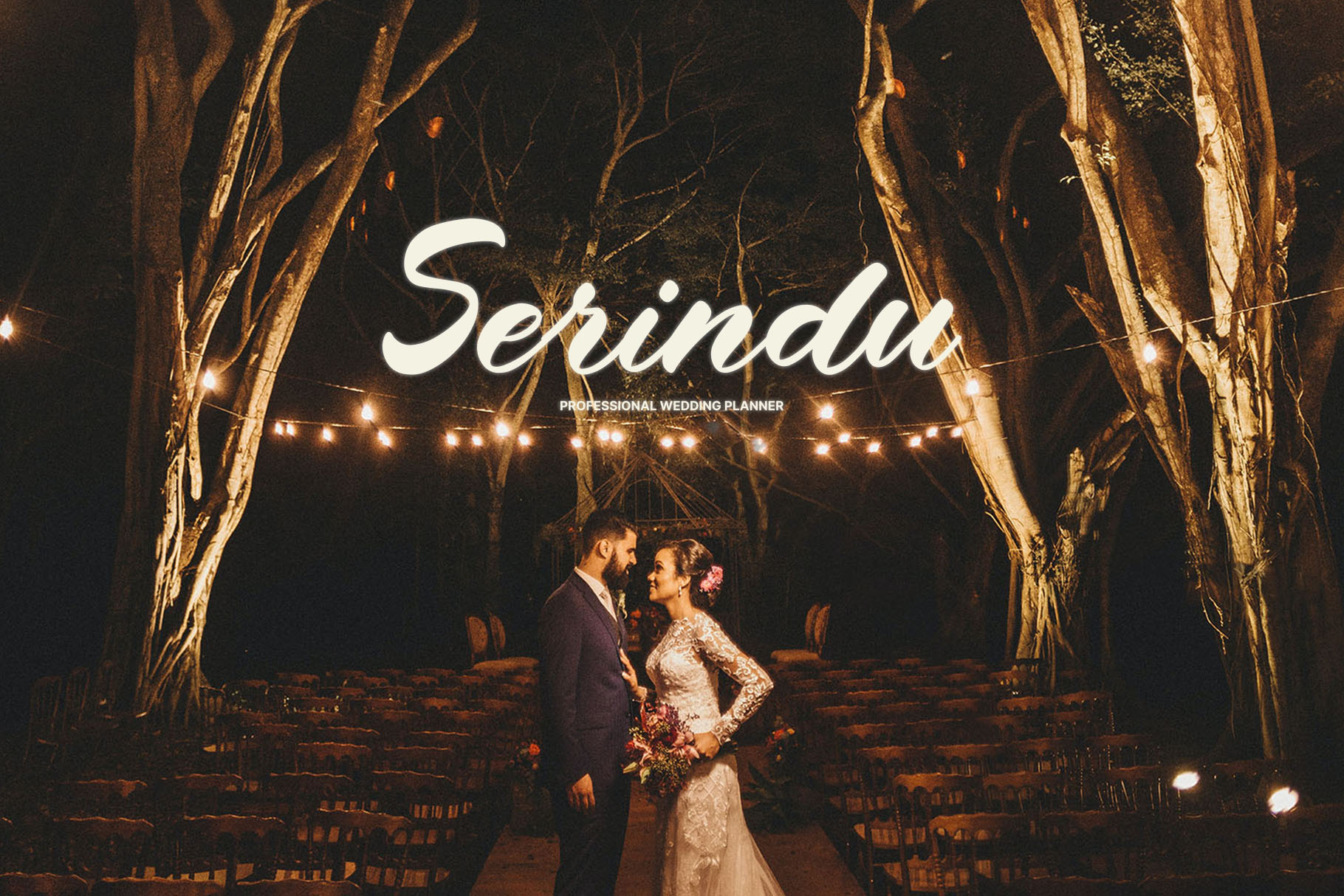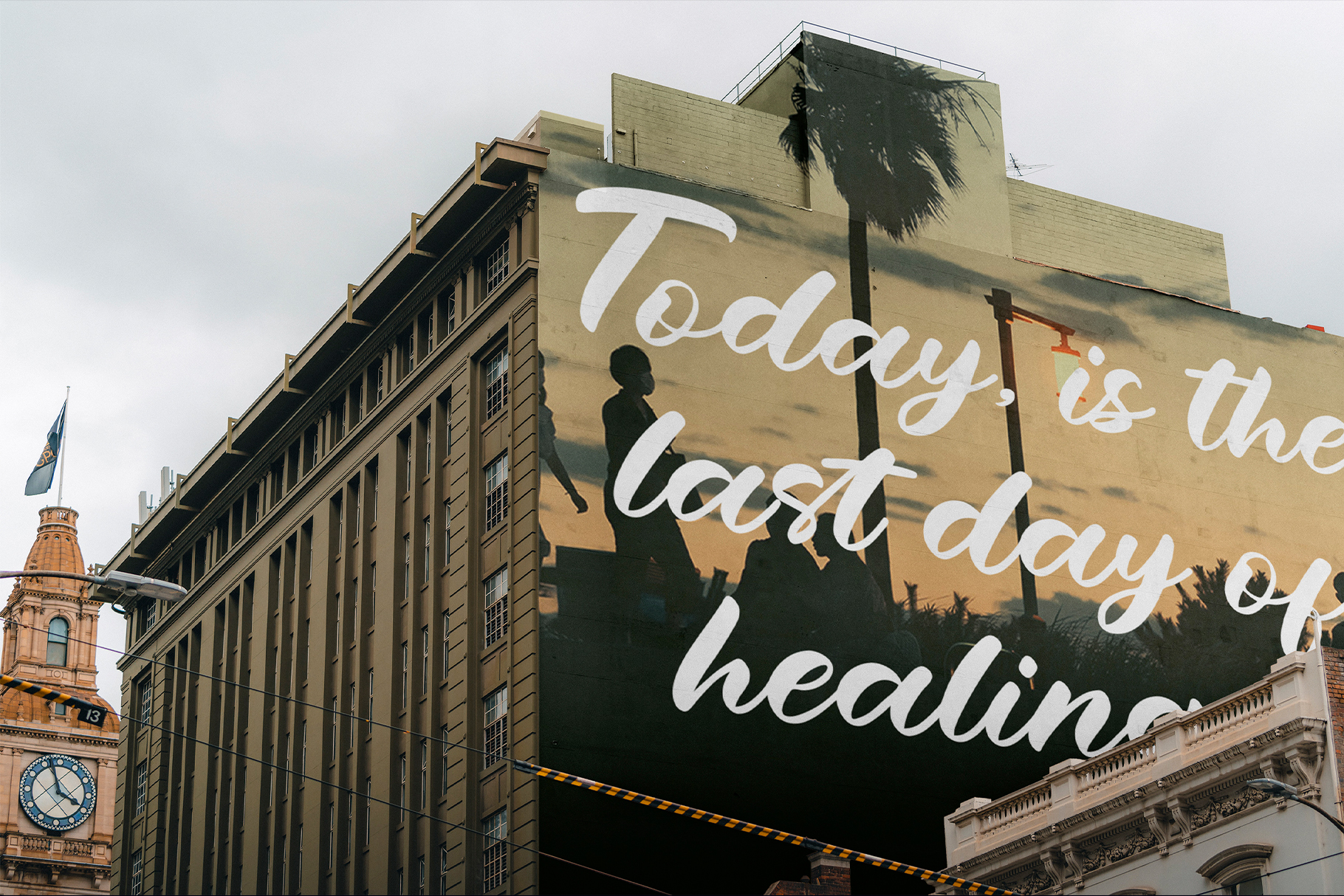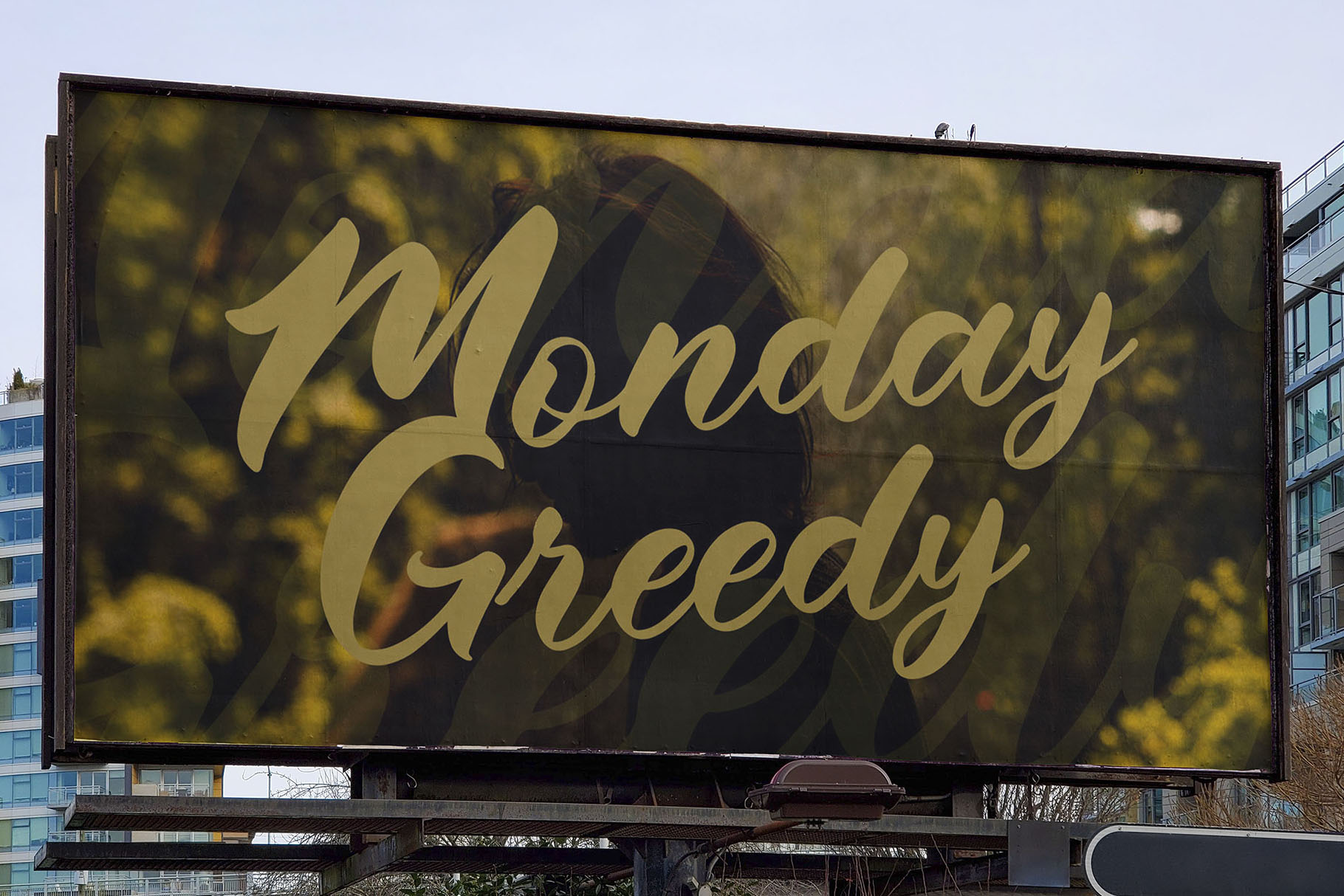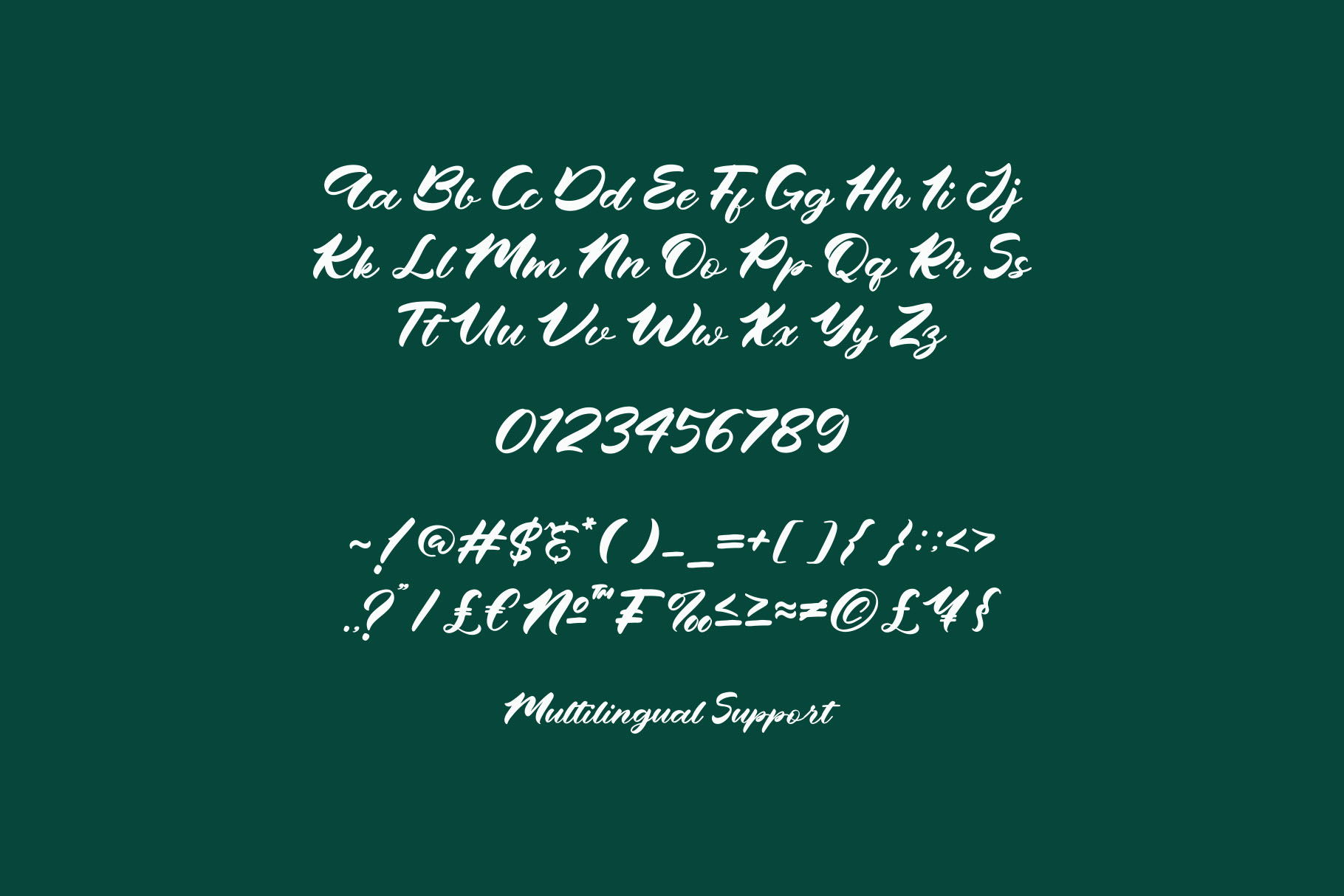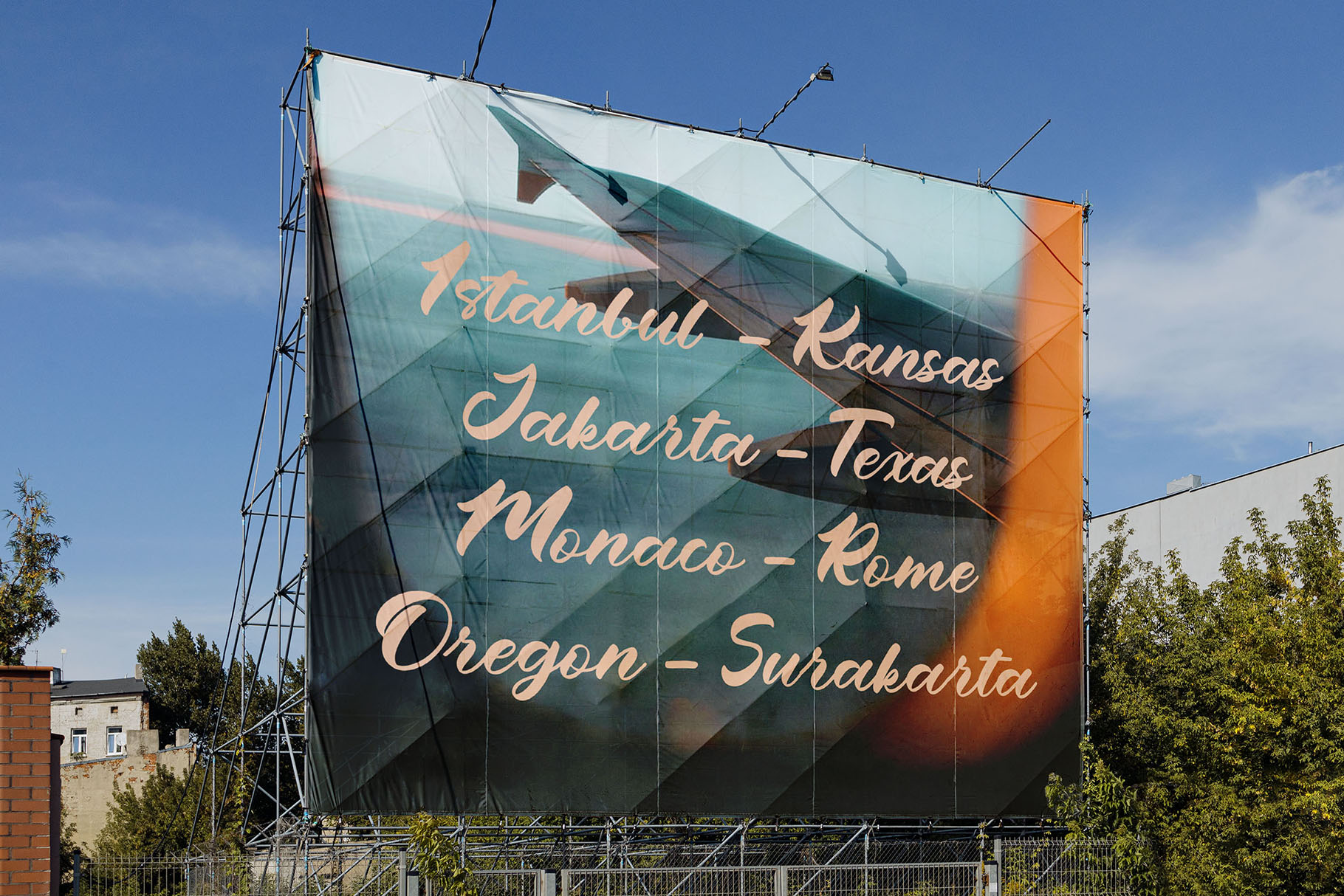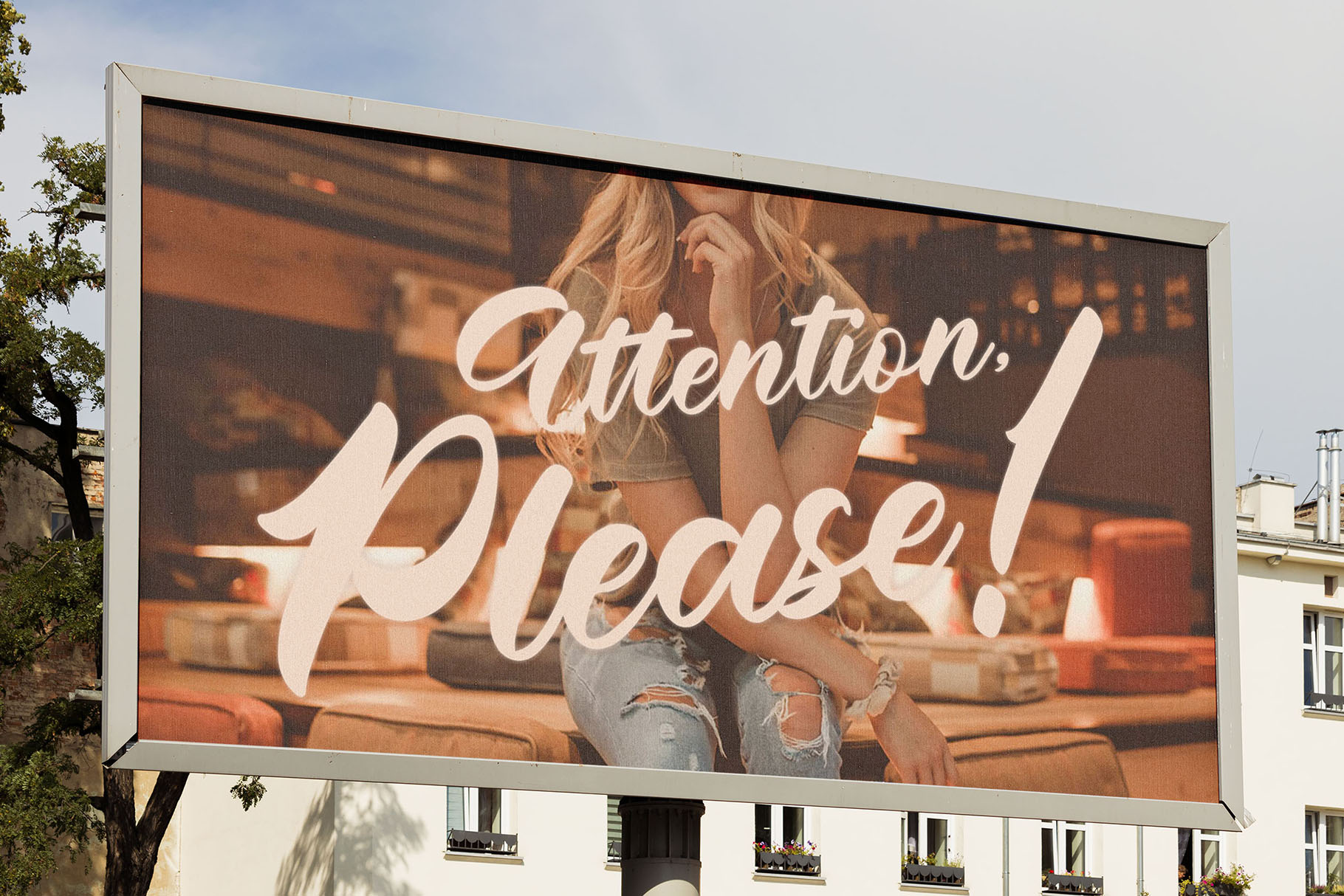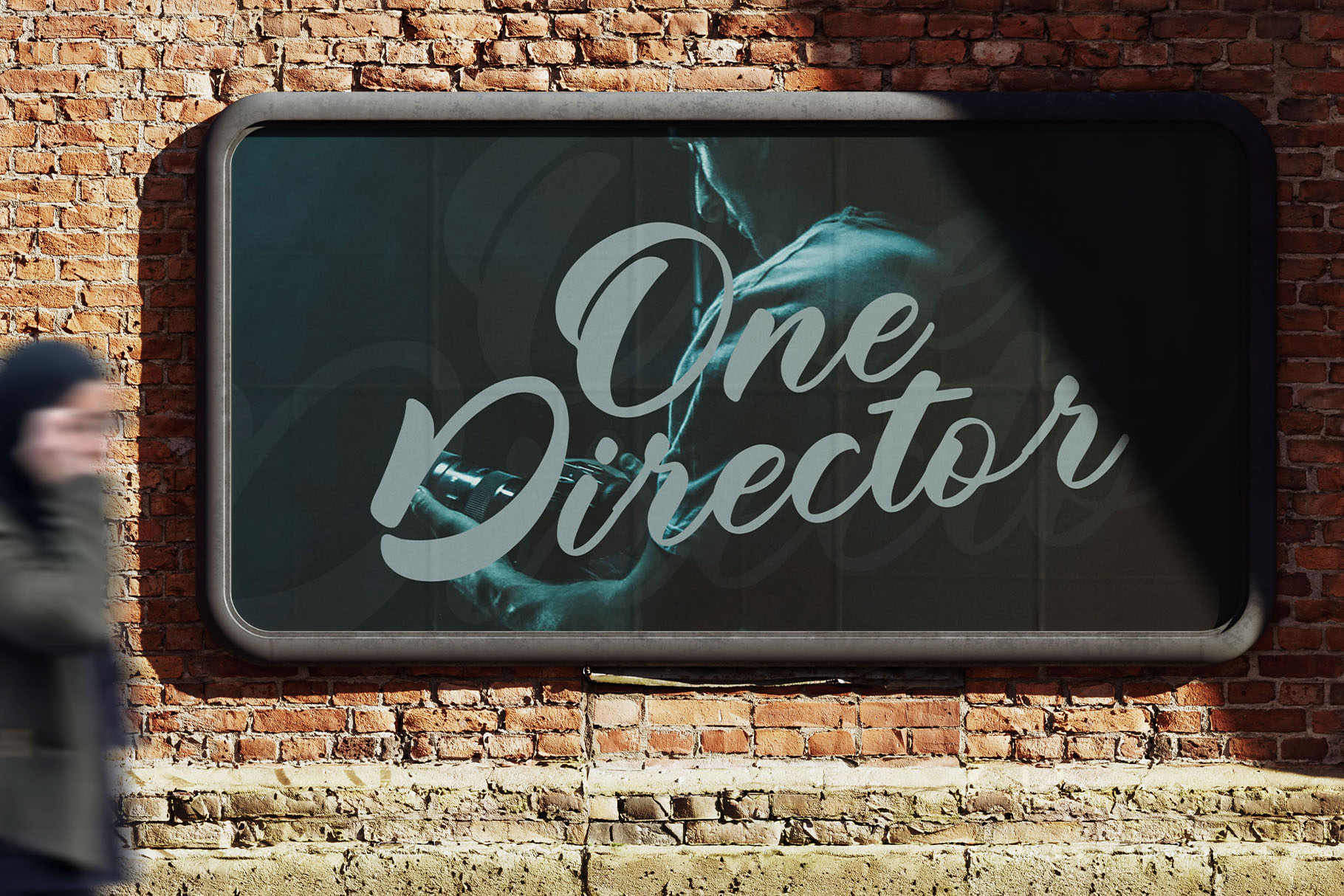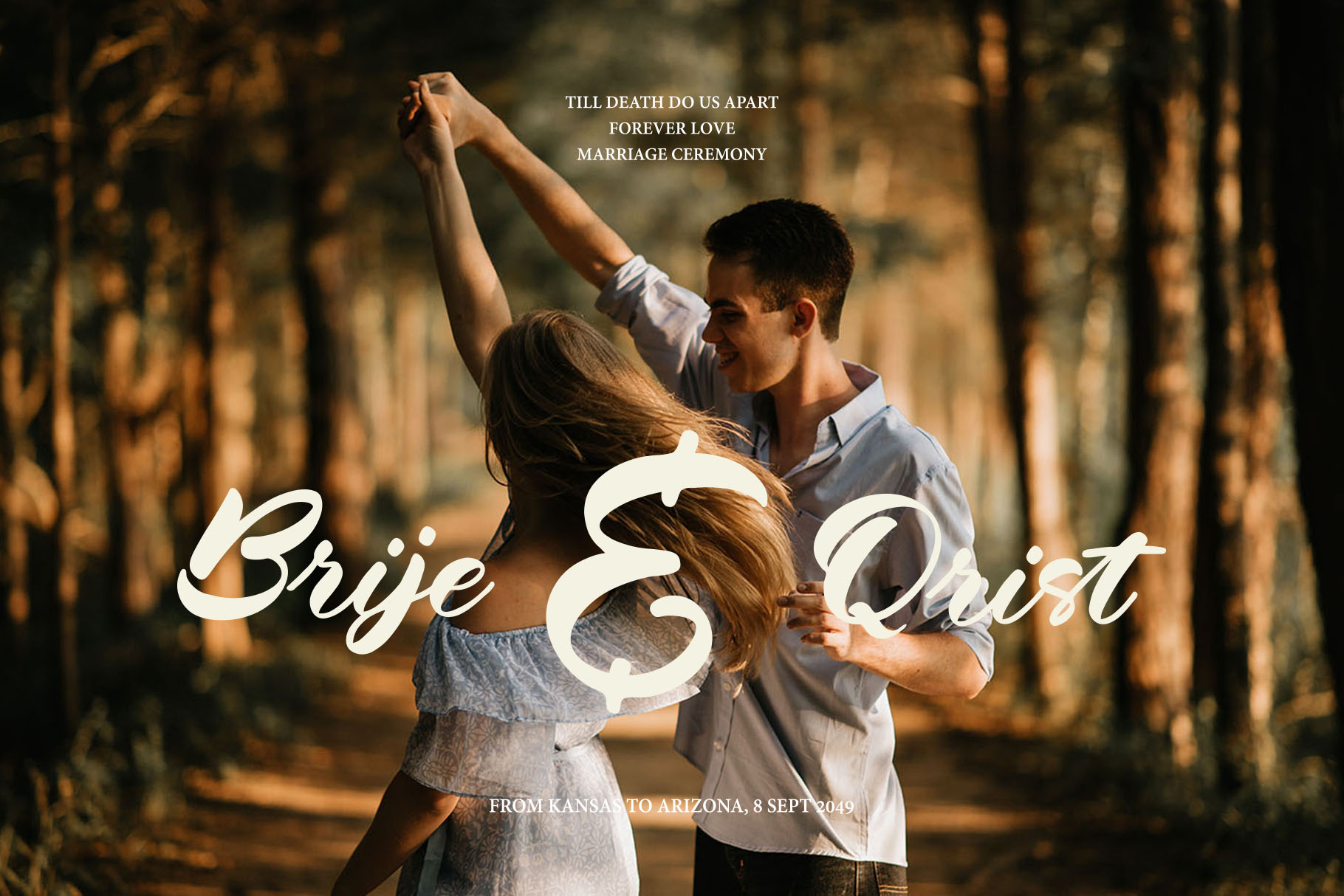
NCL Bujho Orgnist – Bold Brush Script Font
NCL BUJHO ORGNIST- Bold Brush Script Font is a fun, unique, stylish, and modern display font. With its bold and vibrant design, it adds a dynamic and expressive touch to your projects. This textured font is full of energy and impact, making it perfect for headlines, billboards, magazines, websites, titles, posters, branding, t-shirt designs, and logos. Whether your project is lively, dramatic, or anything in between, NCL Bujho Orgnist will elevate your creation to the highest level.
- Contains 361 Glyphs
- Uppercase, Lowercase, & Numeral
- Punctuation, Symbol & Ligatures
- Multilingual Support